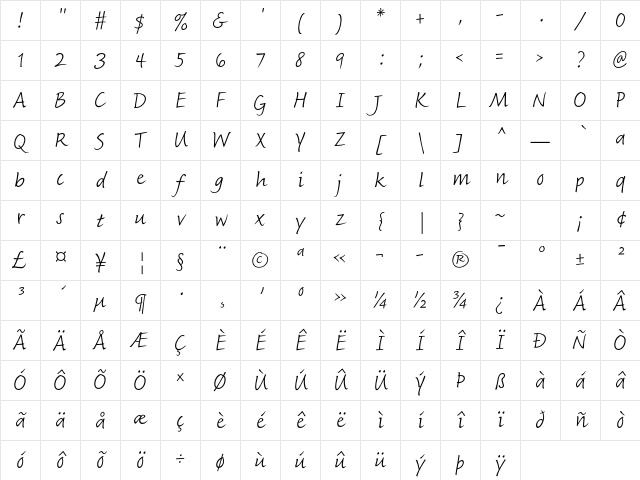
Fineprint Std Light
Design Context for Fineprint Std
Fineprint Std is a composed and adaptable typeface that performs quietly and consistently across a wide range of design contexts. Its slender proportions lend an understated elegance to any composition.